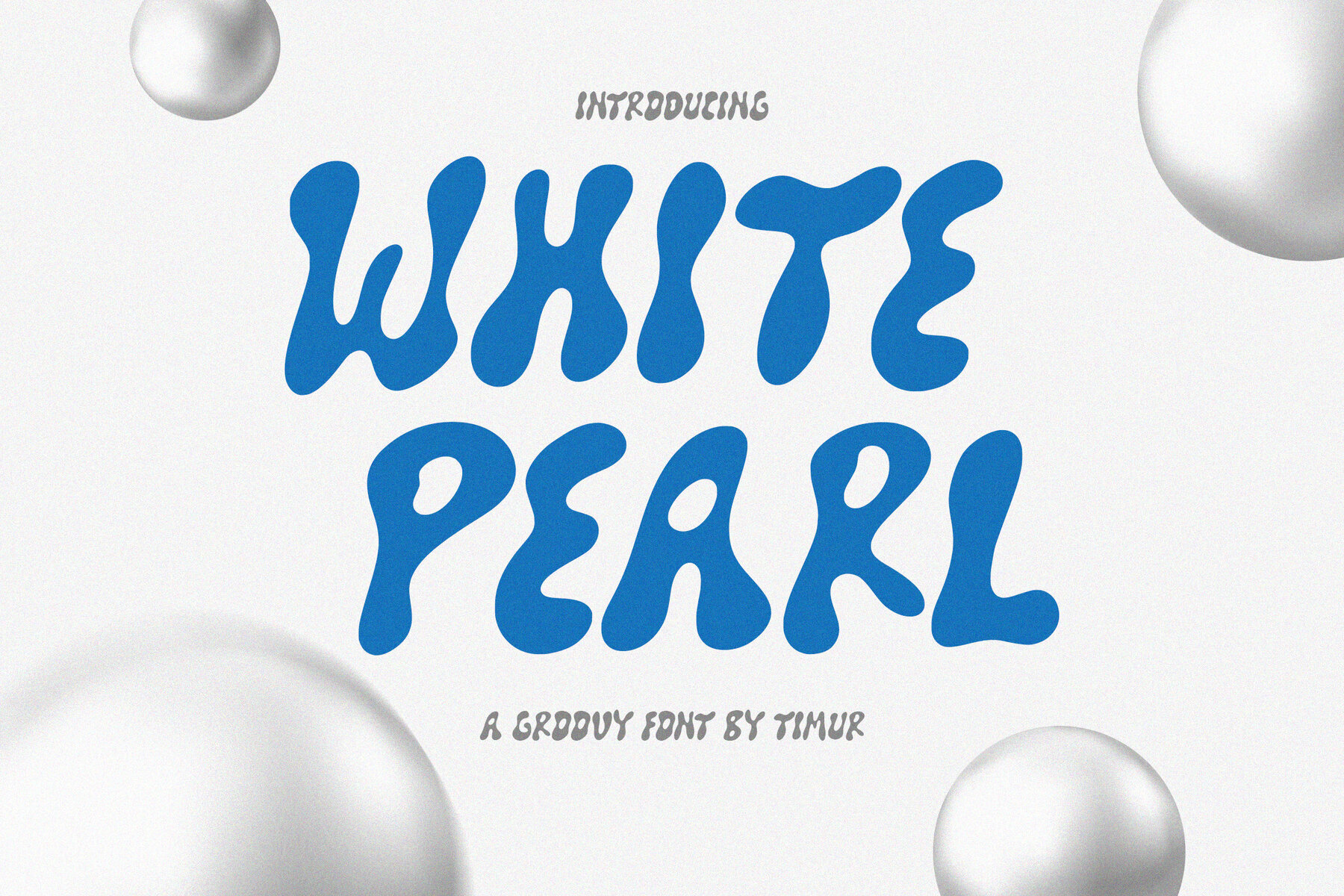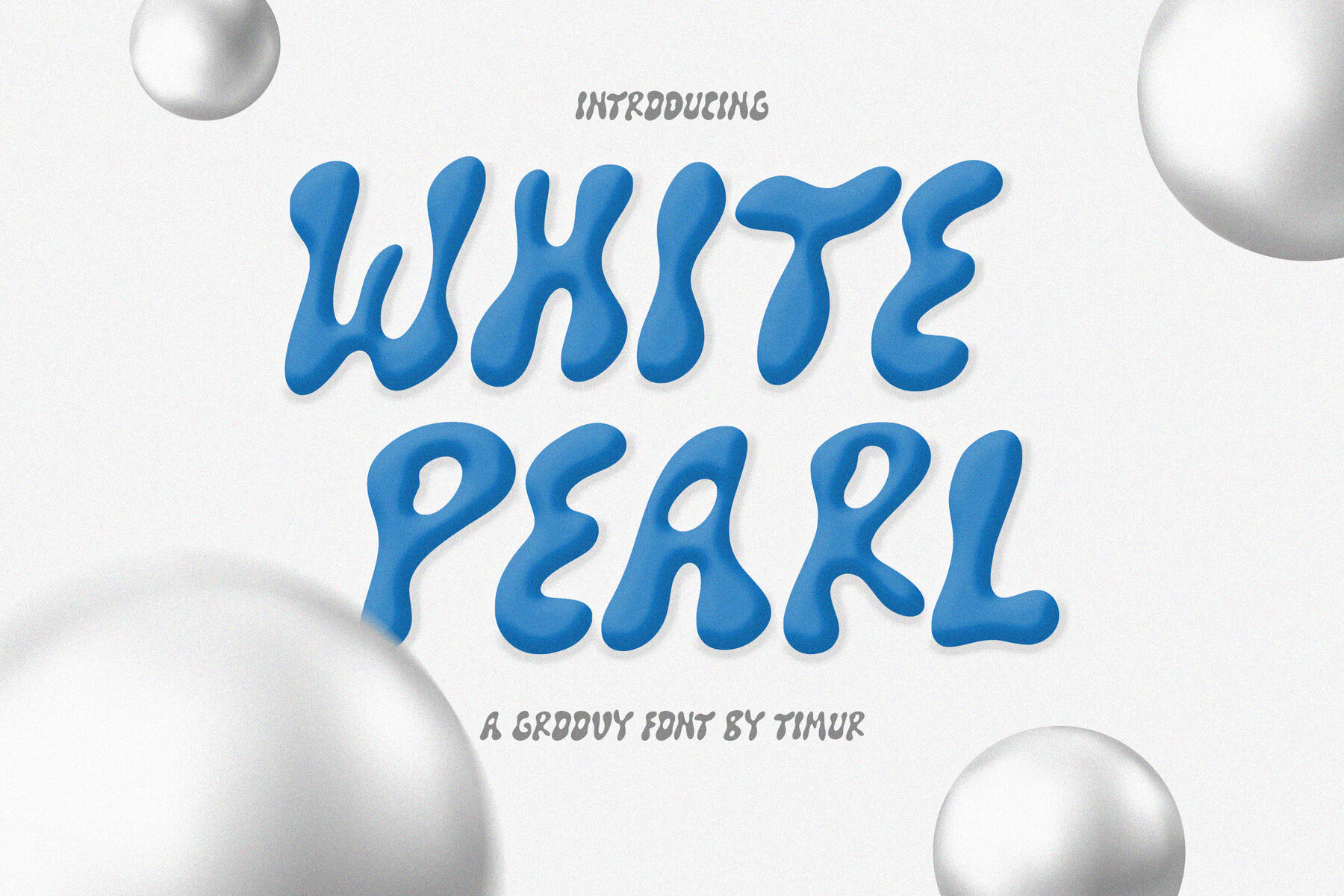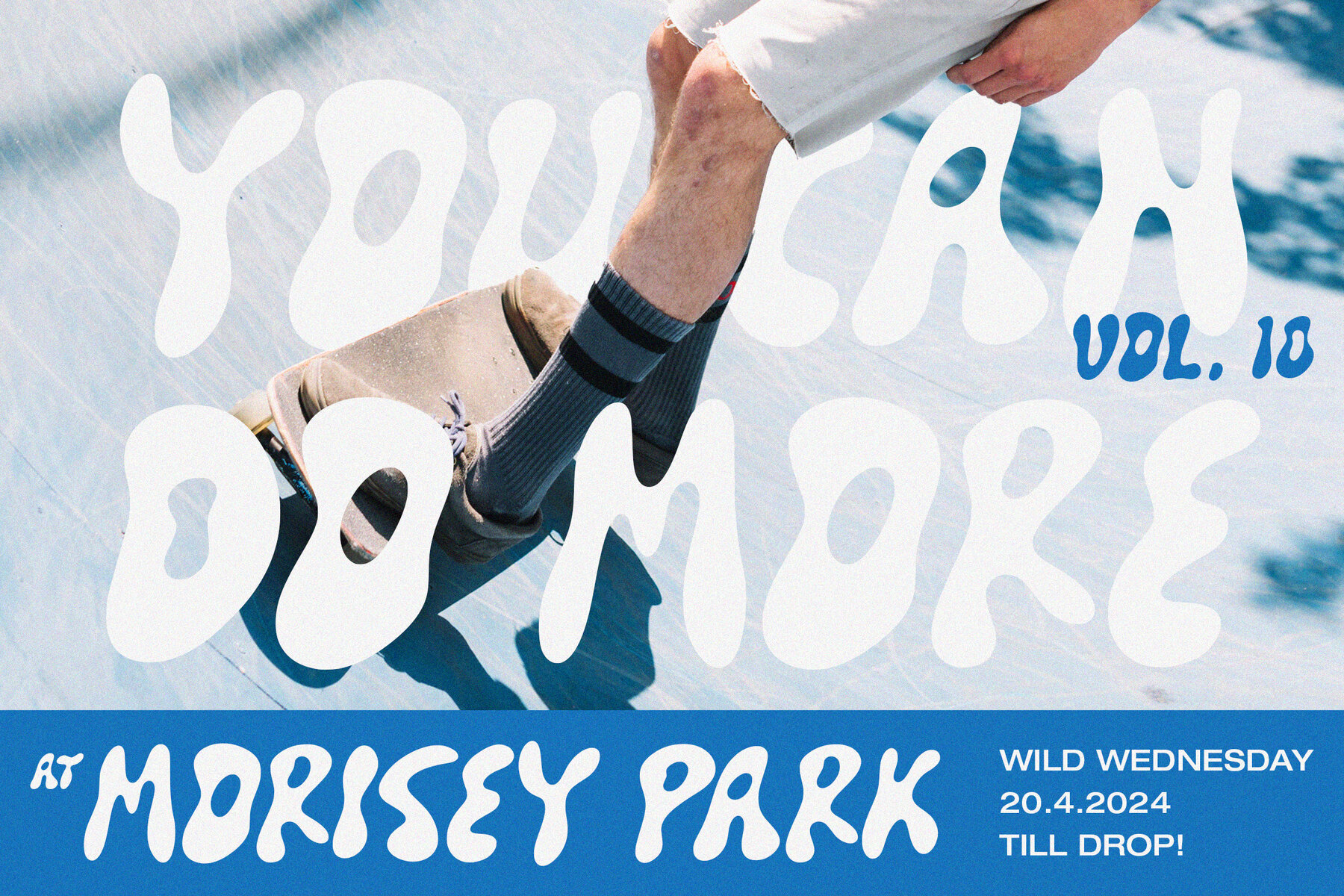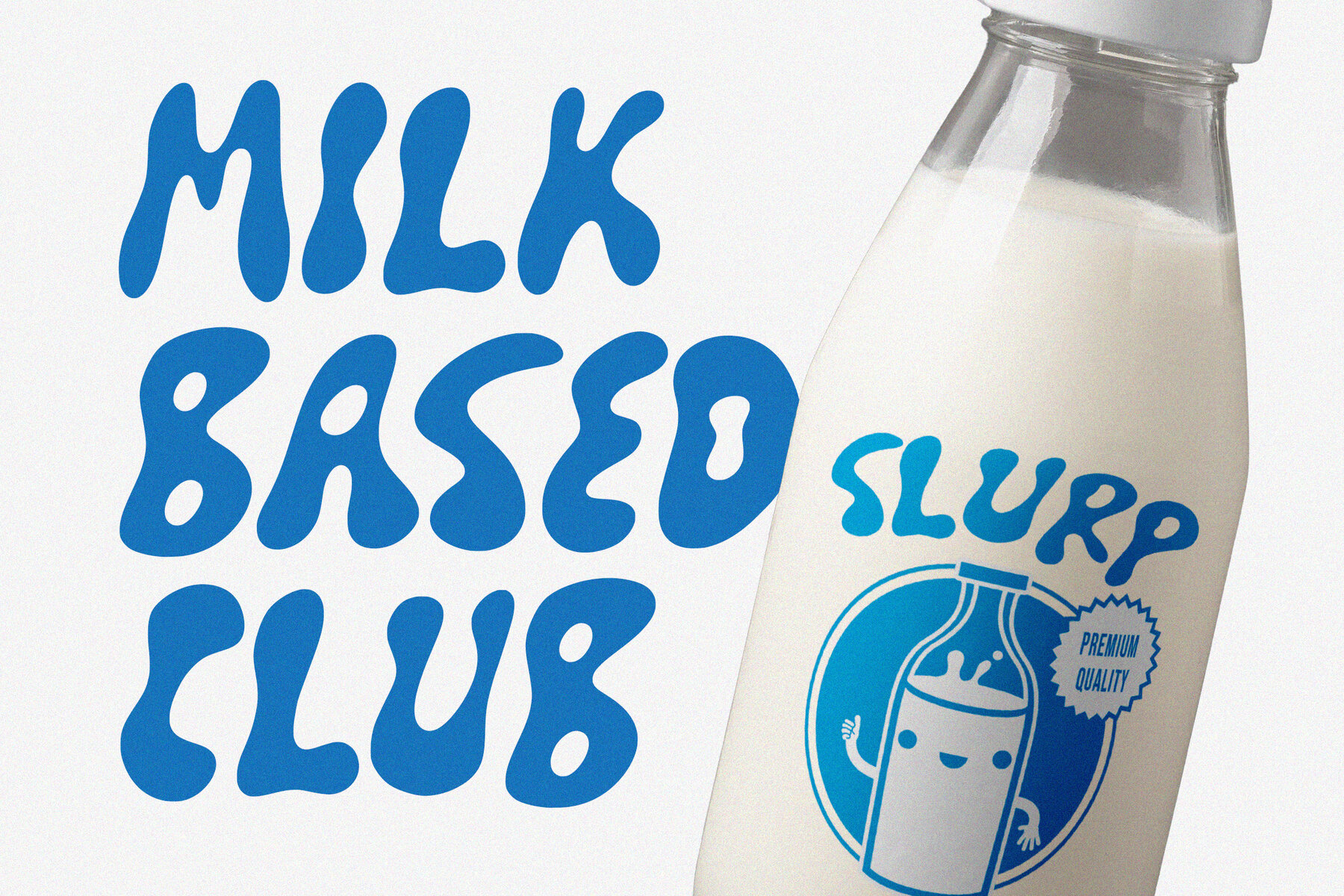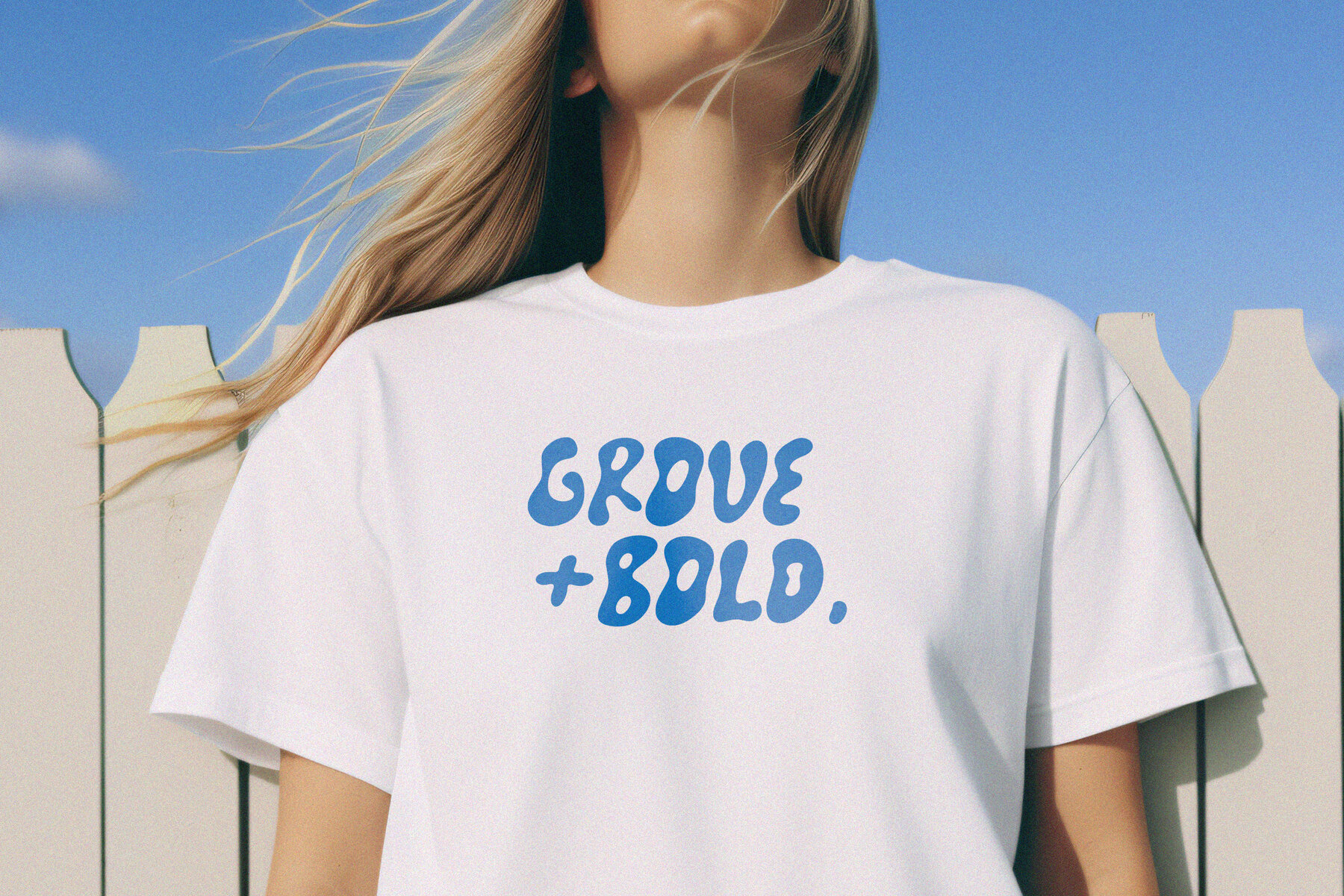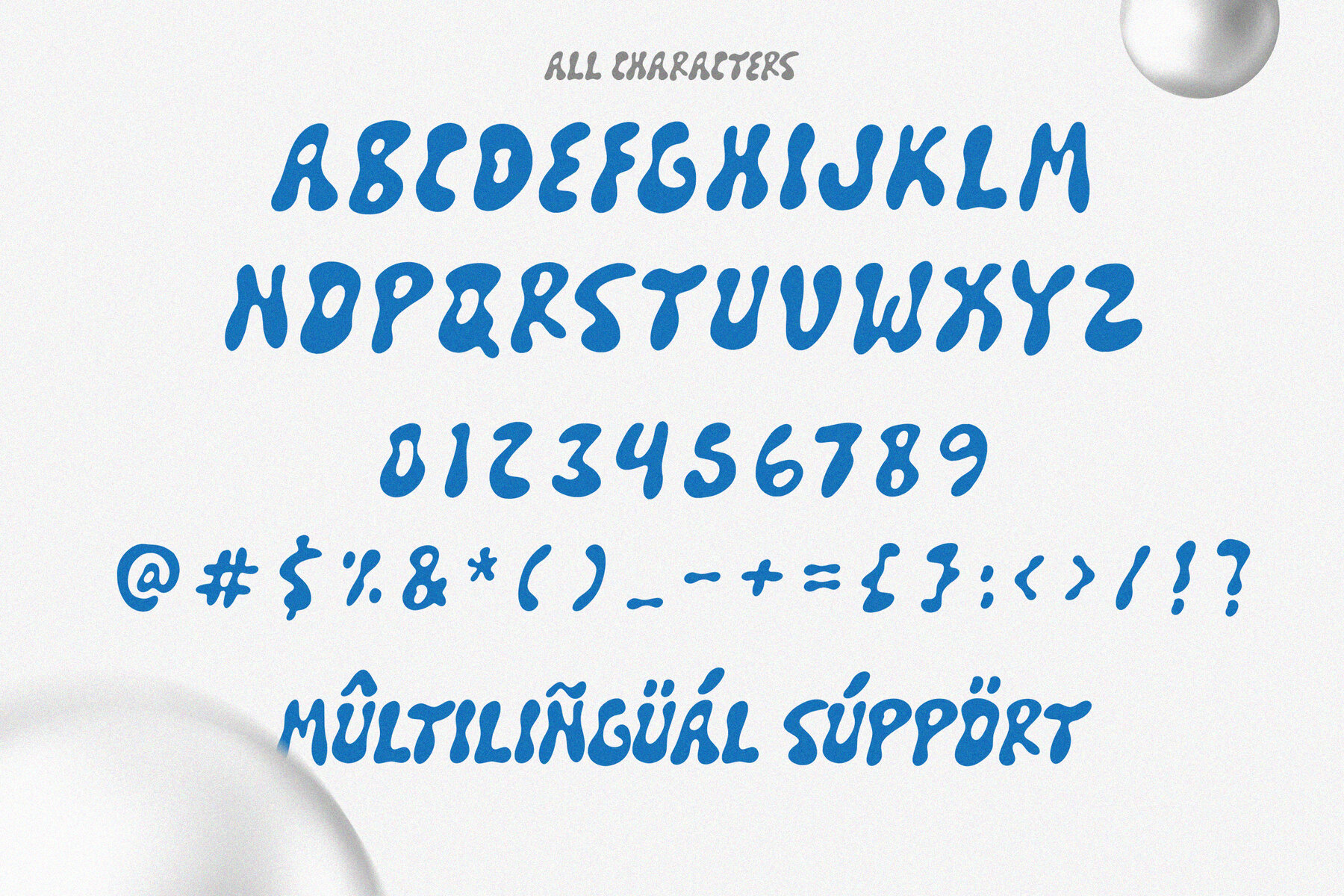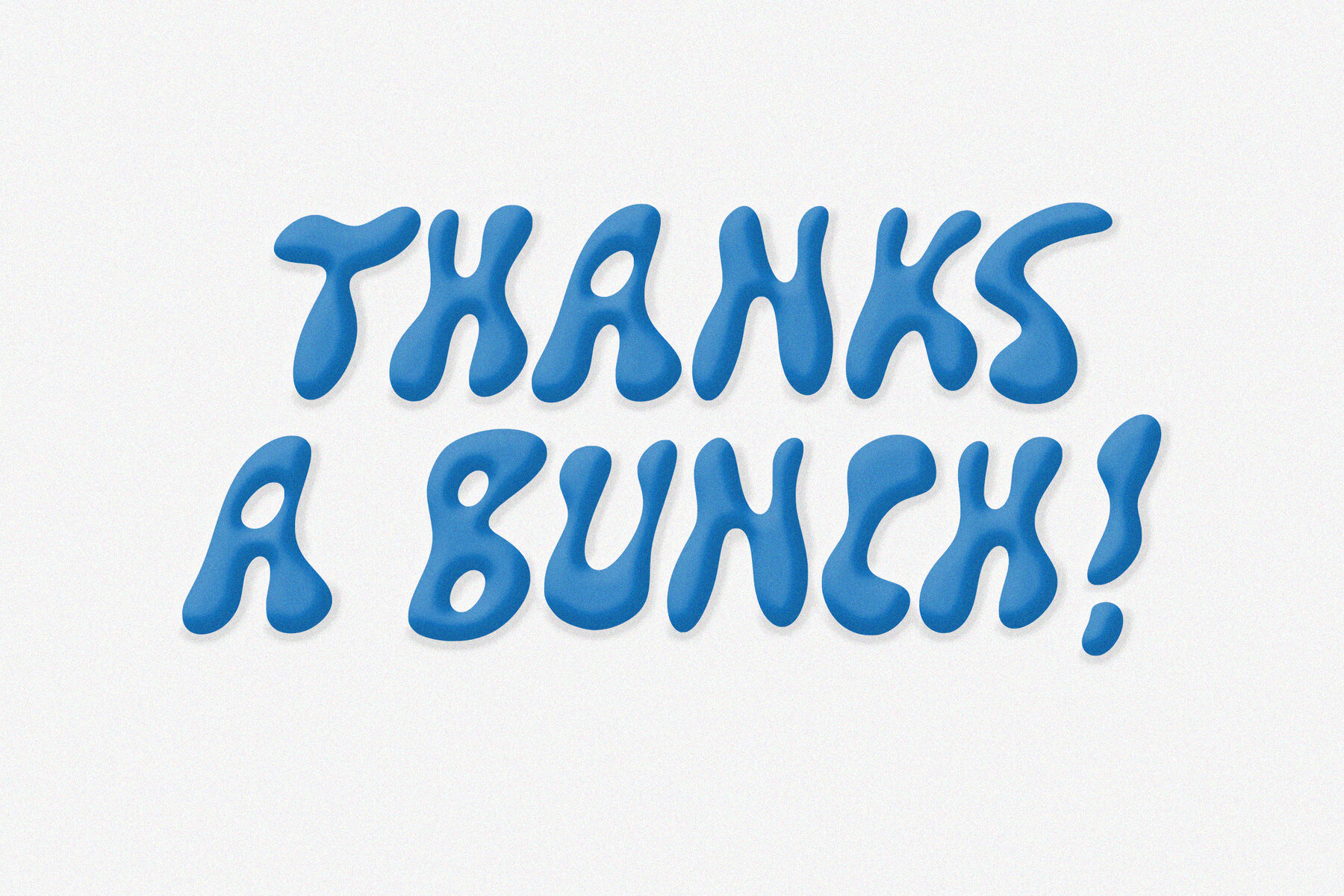
White Pearl Font
White Pearl
White Pearl is a groovy display font that seamlessly merges elegance with modernity. Its sleek lines and bold curves are meticulously crafted to capture attention while exuding sophistication. Drawing inspiration from the luster of pearls, it possesses a timeless quality, making it perfect for applications in fashion branding, luxury products, and high-end editorial design.
This font is designed to infuse a touch of refinement and charm into creative projects. Whether featured in headlines, logos, or advertisements, White Pearl stands out as a preferred choice for designers who desire a harmonious blend of style and grace in their typography. Its distinctive character makes it an essential tool for any design endeavor seeking an elegant yet contemporary edge.